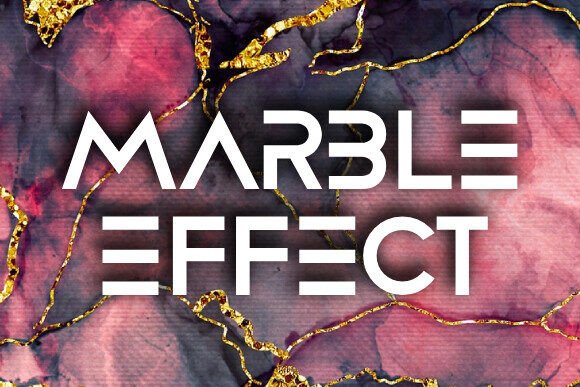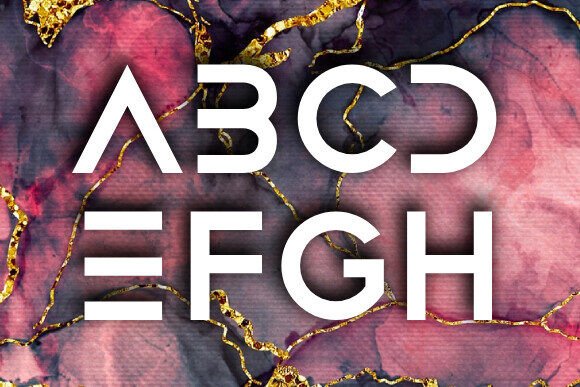
Introduction to Ethernal Font
Have you ever stared at a blank canvas, waiting for inspiration to strike? For designers, those moments can be the most thrilling – and intimidating. But what if the perfect font could be the spark that sets your creative project ablaze? Enter the Ethernal Font, a bold, futuristic techno font that brings a cutting-edge digital aesthetic to your designs.
With its sharp geometric edges and modern style, the Ethernal Font is perfect for sci-fi posters, tech branding, esports logos, and digital media projects that need a sleek and innovative touch. Whether you’re working on a design resource for a cutting-edge company or creating a high-quality visual for a client, this font is sure to elevate your work and leave a lasting impression.
Key Features of Ethernal Font
- High-quality, professional font suitable for creative projects and design resources.
- Features a unique, modern design with a transparent background, allowing for easy layering and composition.
- Perfect for use in logos, branding, and other design elements where a sleek, modern aesthetic is desired.
Honest Review: Ethernal Font
As a designer, I’m always on the lookout for high-quality design resources to enhance my creative projects. Recently, I had the chance to work with the Ethernal Font, and I must say it’s been a game-changer.
What works well is the font’s sleek and modern aesthetic, which makes it perfect for a wide range of applications, from branding to digital design. The clean lines and sophisticated feel of the Ethernal Font are sure to elevate any project ✨. Another standout feature is the font’s compatibility with transparent backgrounds, making it a great choice for designers who need to create complex, layered designs.
Limitations include the font’s limited character set, which may not be ideal for projects that require a wide range of characters or languages ⚠️. Additionally, the font may not be suitable for use in situations where a more traditional, serif font is required.
Overall, I’m thoroughly impressed with the Ethernal Font. Its high-quality design, versatility, and affordability make it a great addition to any designer’s toolkit. If you’re looking for a modern, sophisticated font to enhance your creative projects, I highly recommend giving the Ethernal Font a try.
- Sleek and modern aesthetic
- Limited character set
- May not be suitable for traditional or serif font applications
Ethernal Font is a high-quality design resource perfect for any creative project. With its unique style and transparent background, it’s a great addition to any design.
Tips for Getting the Most Out of Ethernal Font
To get the most out of the Ethernal Font, use it in conjunction with other high-quality design resources. Experiment with different font sizes, colors, and combinations to create a unique look that suits your design needs.
The Ethernal Font is perfect for any creative project that requires a touch of elegance and sophistication. Use it in logos, branding materials, presentations, and documents to add a unique touch to your design.